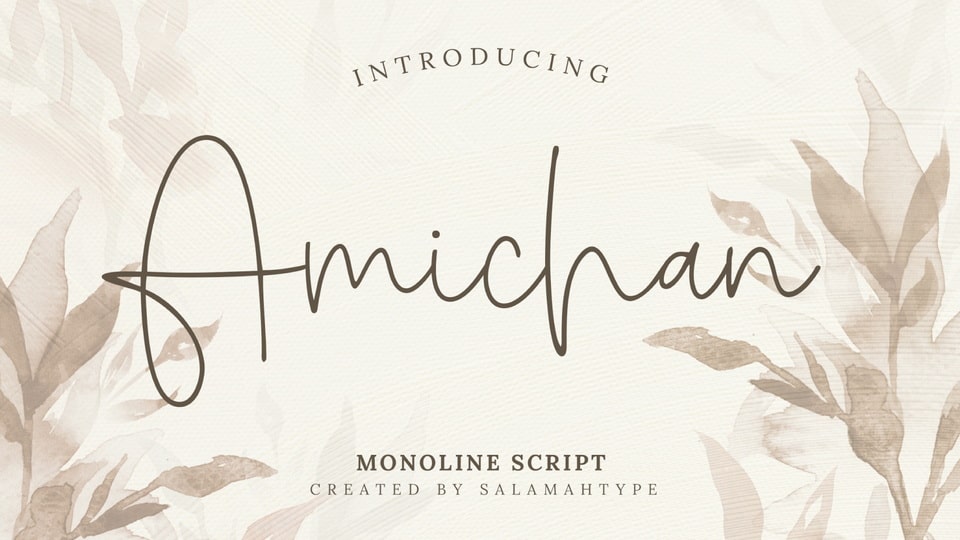
Download Amichan font, an elegant and beautiful monoline script typeface. Amichan combines sophistication and readability, making it a versatile choice for any design that requires a stylish, contemporary feel.